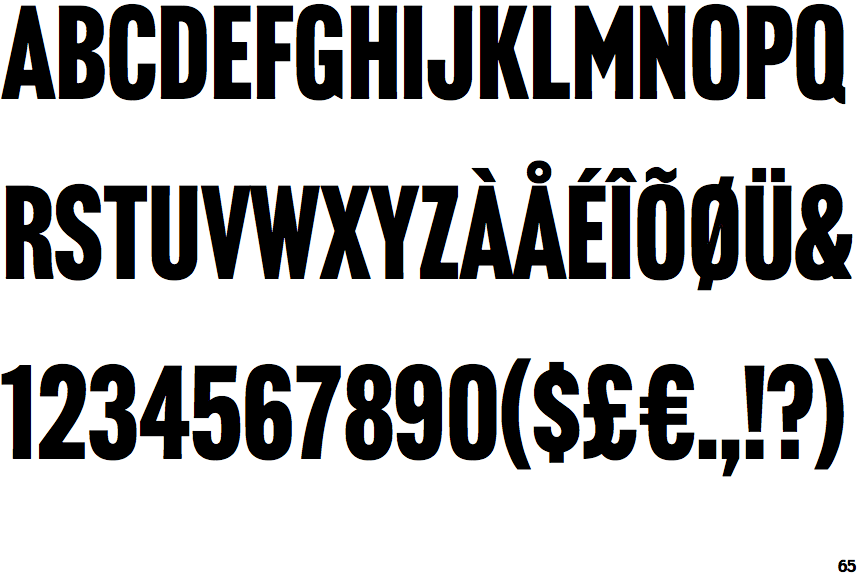
Derived from the gothic era dated back to the 12th century, however not based the gothic alphabet from the 4th. Web explore atf headline gothic available at adobe fonts. Web we have 40 free gothic, calligraphy, headline fonts to offer for direct downloading · 1001 fonts is your favorite site for free fonts. A sans serif typeface with 4 styles, available from adobe fonts for sync and web.
Headline Gothic Font Free - Web we have 40 free gothic, calligraphy, headline fonts to offer for direct downloading · 1001 fonts is your favorite site for free fonts. A sans serif typeface with 4 styles, available from adobe fonts for sync and web. Web immerse in the allure of our free gothic headline fonts. Web headline gothic atf font free download. Every font is.
Headline Gothic Font Free - Web we have 40 free gothic, calligraphy, headline fonts to offer for direct downloading · 1001 fonts is your favorite site for free fonts. ️ this font has been downloaded 8,000+ times. Perfect for creating a mysterious, vintage vibe in your design. Every font is free to. Web explore atf headline gothic available at adobe fonts.
Headline Gothic Font Free - Perfect for creating a mysterious, vintage vibe in your design. Every font is free to. Web explore atf headline gothic available at adobe fonts. Click to find the best 9 free fonts in the modern gothic headline style. Web download and install the headline gothic regular font for free from ffonts.net.
Headline Gothic Font Free - Every font is free to. ️ this font has been downloaded 8,000+ times. Derived from the gothic era dated back to the 12th century, however not based the gothic alphabet from the 4th. A sans serif typeface with 4 styles, available from adobe fonts for sync and web. Web download and install the headline gothic regular font for free from.